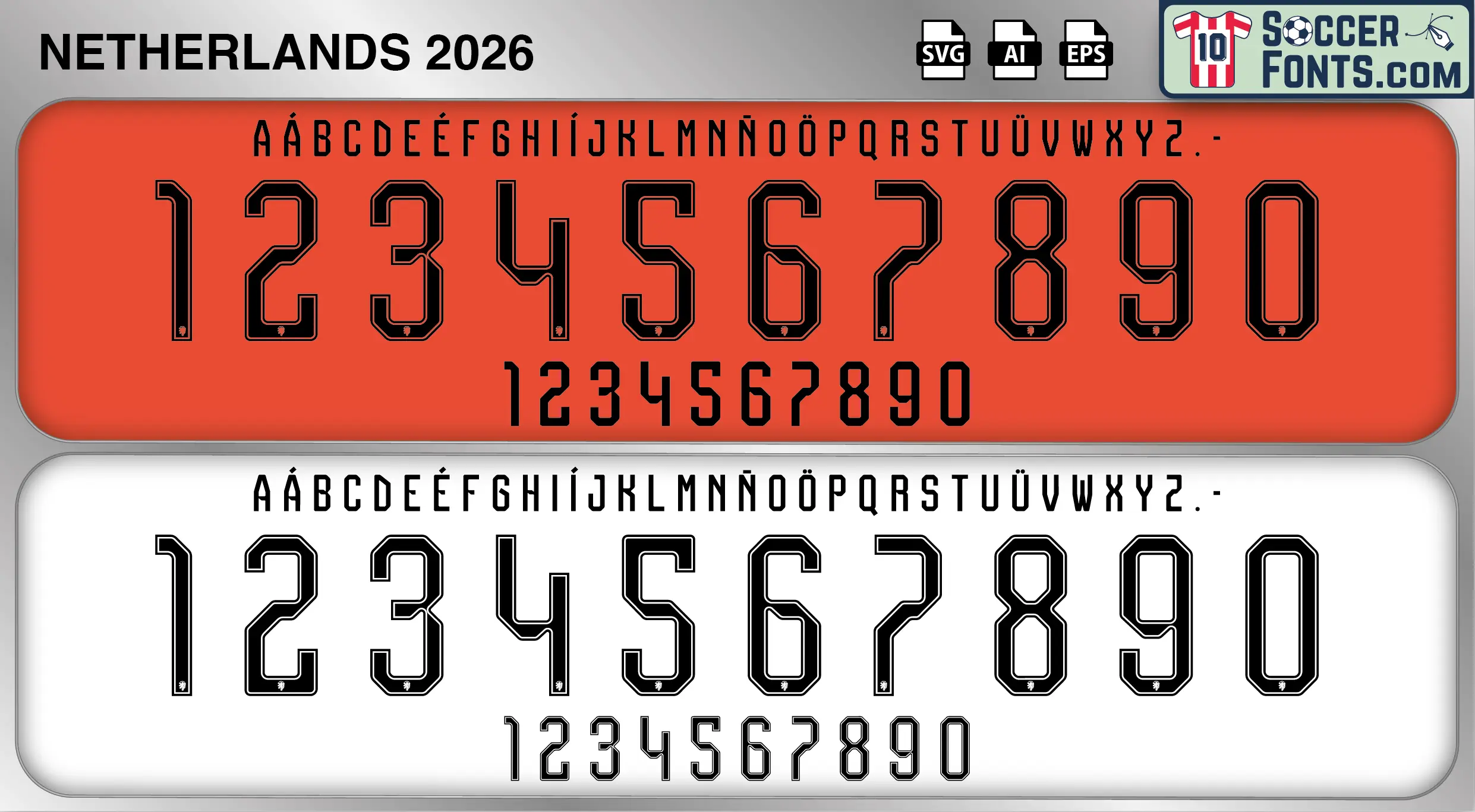
Netherlands 2026 World Cup Font
The Netherlands 2026 World Cup font is an editable soccer jersey lettering design in vector format inspired by the Netherlands kit style used during the 2026 FIFA World Cup. This football font artwork is prepared for football shirt recreations, custom jersey projects, football kit mockups and sports graphic design workflows.
The 2026 FIFA World Cup marks another major tournament chapter for the Netherlands, one of the most influential national teams in football history. Hosted across the United States, Canada and Mexico, the competition provides a global stage for a Dutch squad built around a combination of experienced leaders and emerging stars. Players such as Virgil van Dijk, Frenkie de Jong, Cody Gakpo, Xavi Simons and other members of the new generation are expected to play key roles as Oranje pursues another memorable World Cup campaign. The Netherlands remains admired worldwide for its commitment to technical football, youth development and the tactical ideas that have shaped the sport for decades.
The Netherlands 2026 World Cup font became associated with the tournament-era identity of the Dutch national team as it competes on football’s biggest stage. The Netherlands has a long history of iconic World Cup appearances, from the Total Football era of the 1970s to the World Cup Final teams of 1974, 1978 and 2010, as well as the memorable campaigns of more recent generations. The Netherlands 2026 World Cup font reflects the continuation of that tradition, connecting modern football culture with one of the sport’s most respected national programs. Netherlands shirts from the 2026 World Cup cycle are expected to become highly collectible among football shirt enthusiasts, kit historians and supporters following the latest chapter in the story of Oranje.